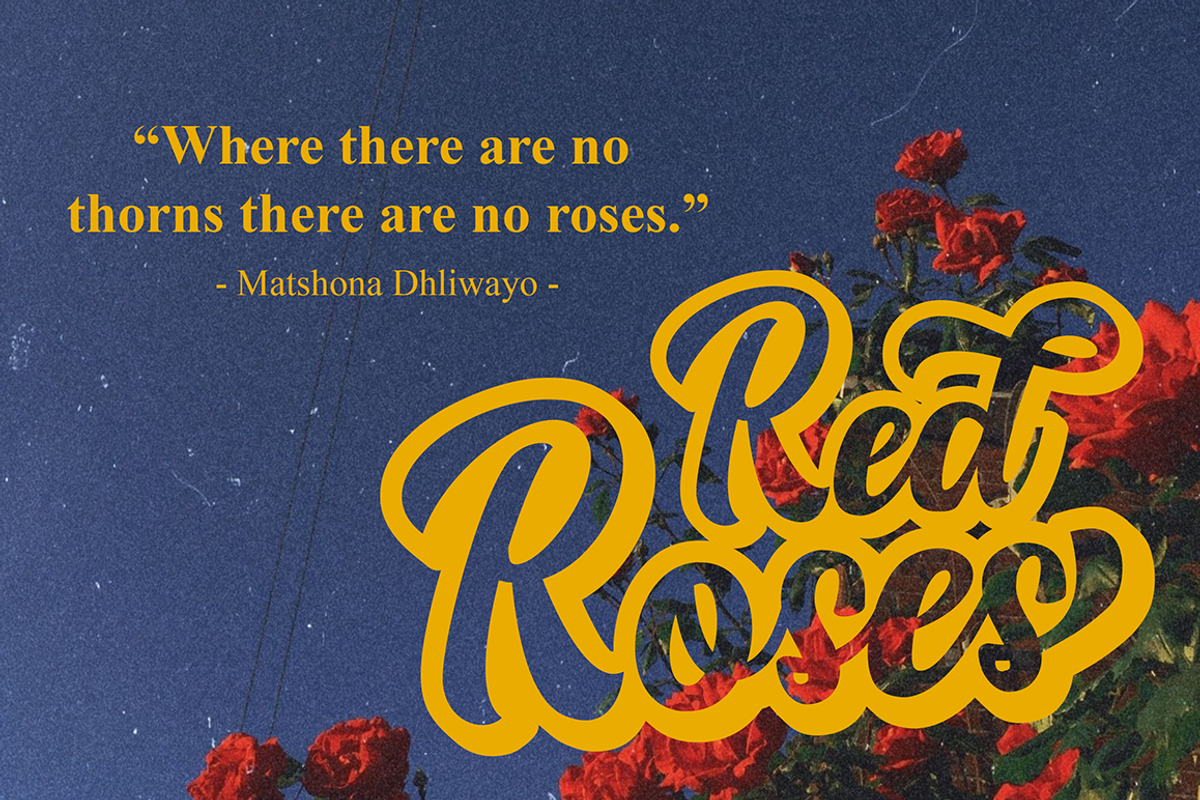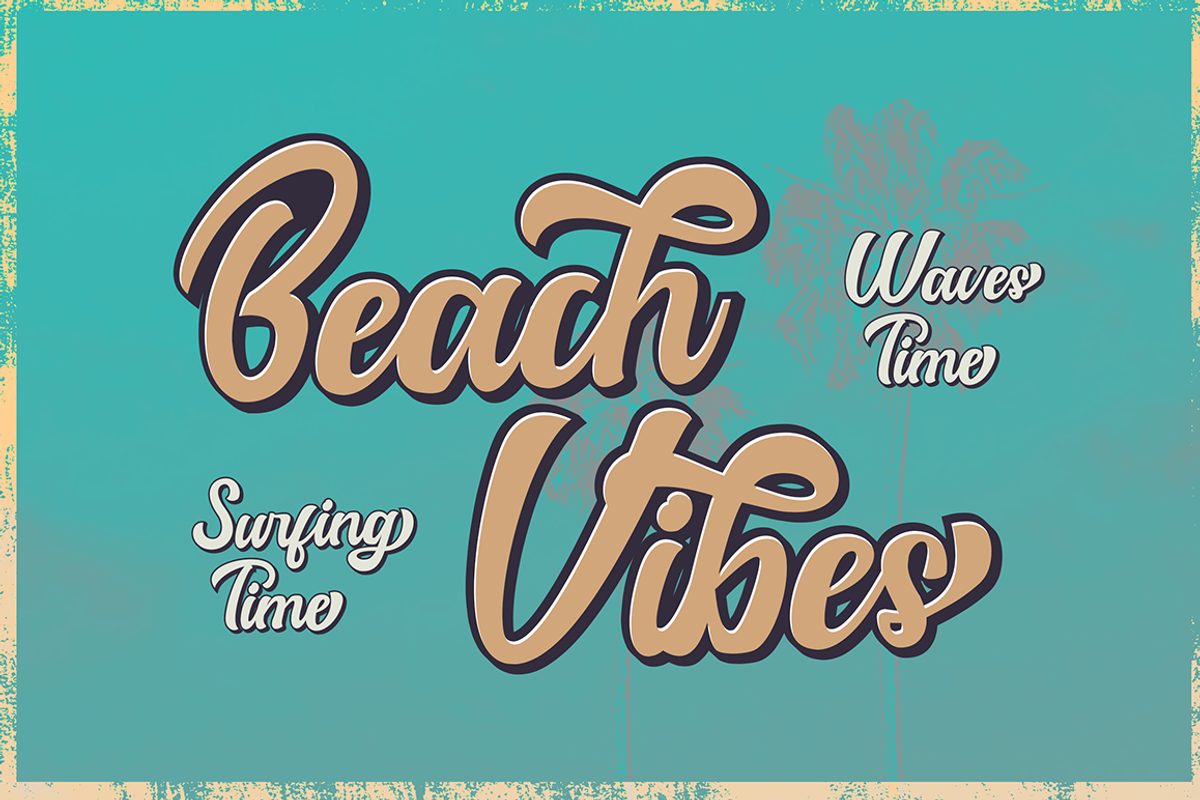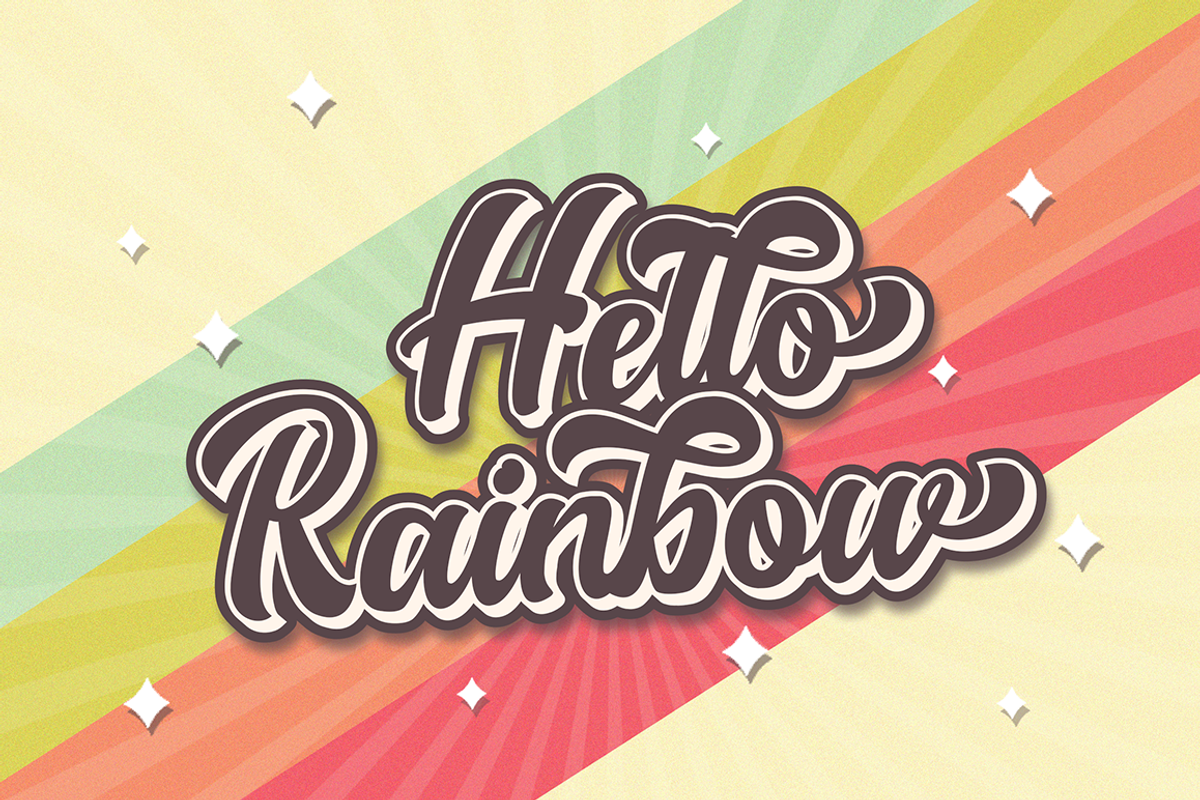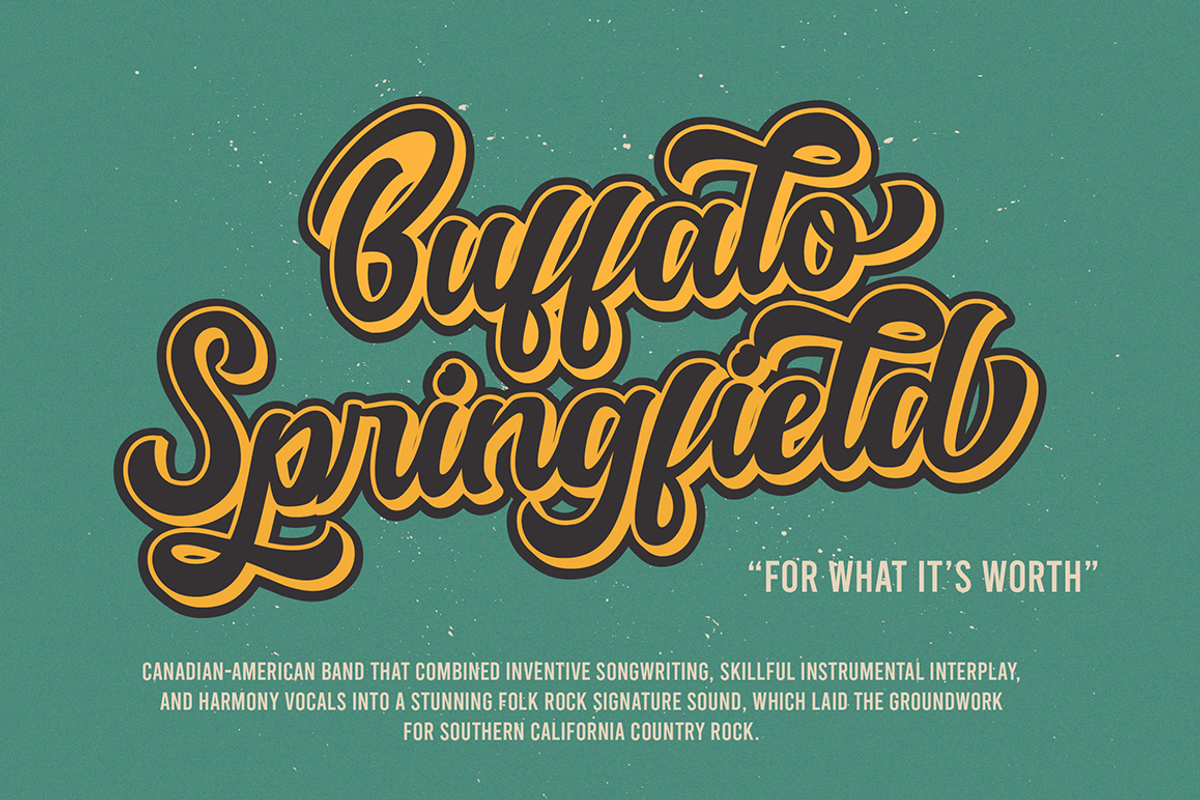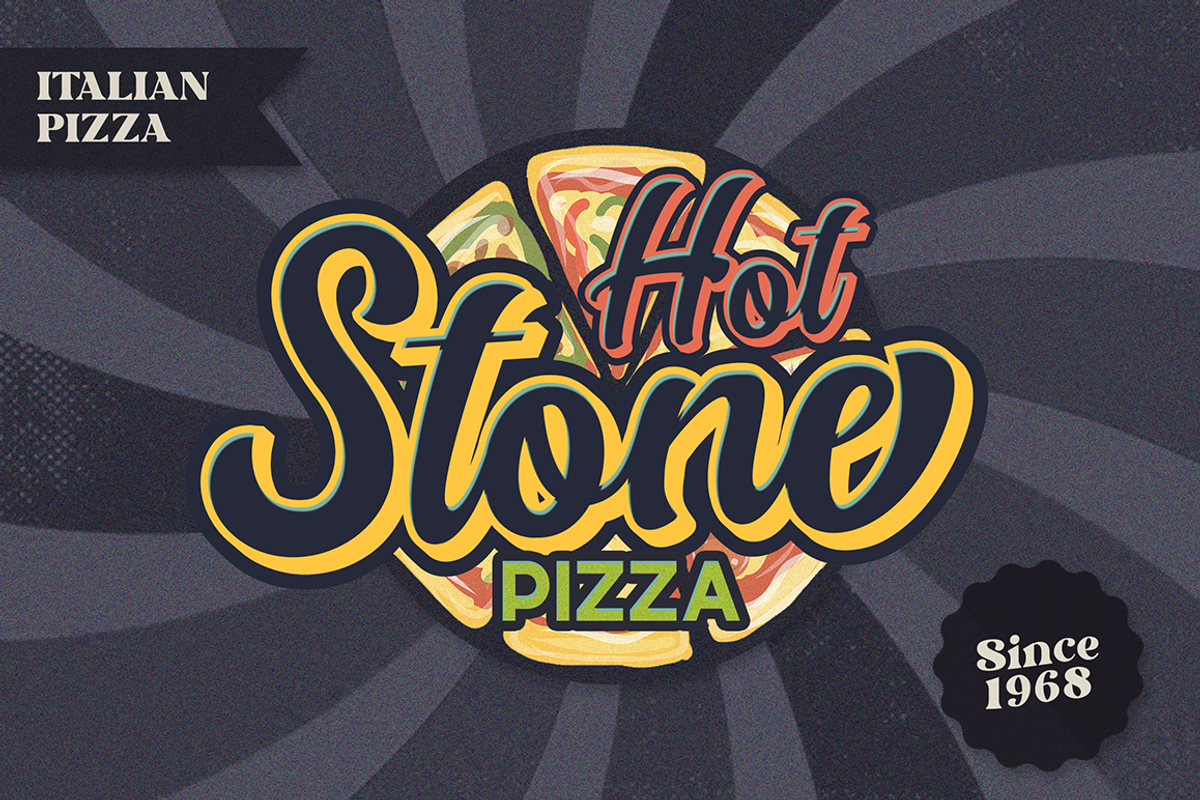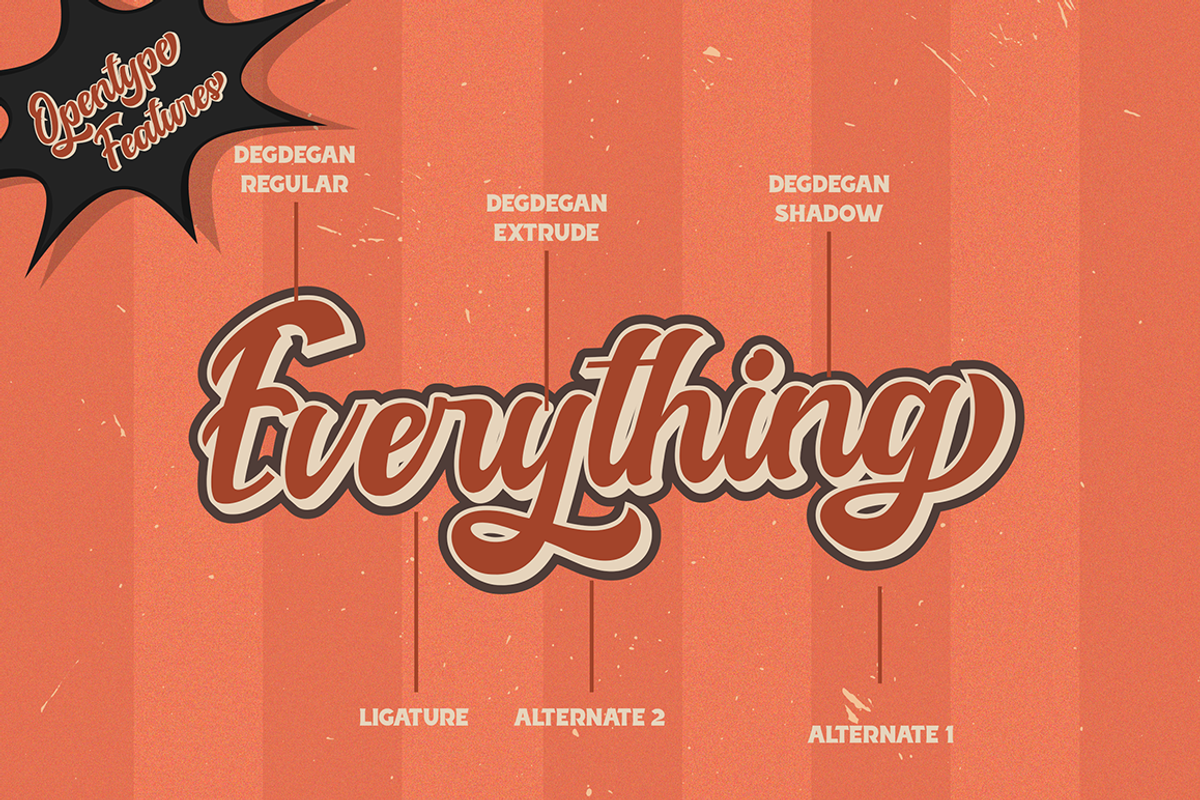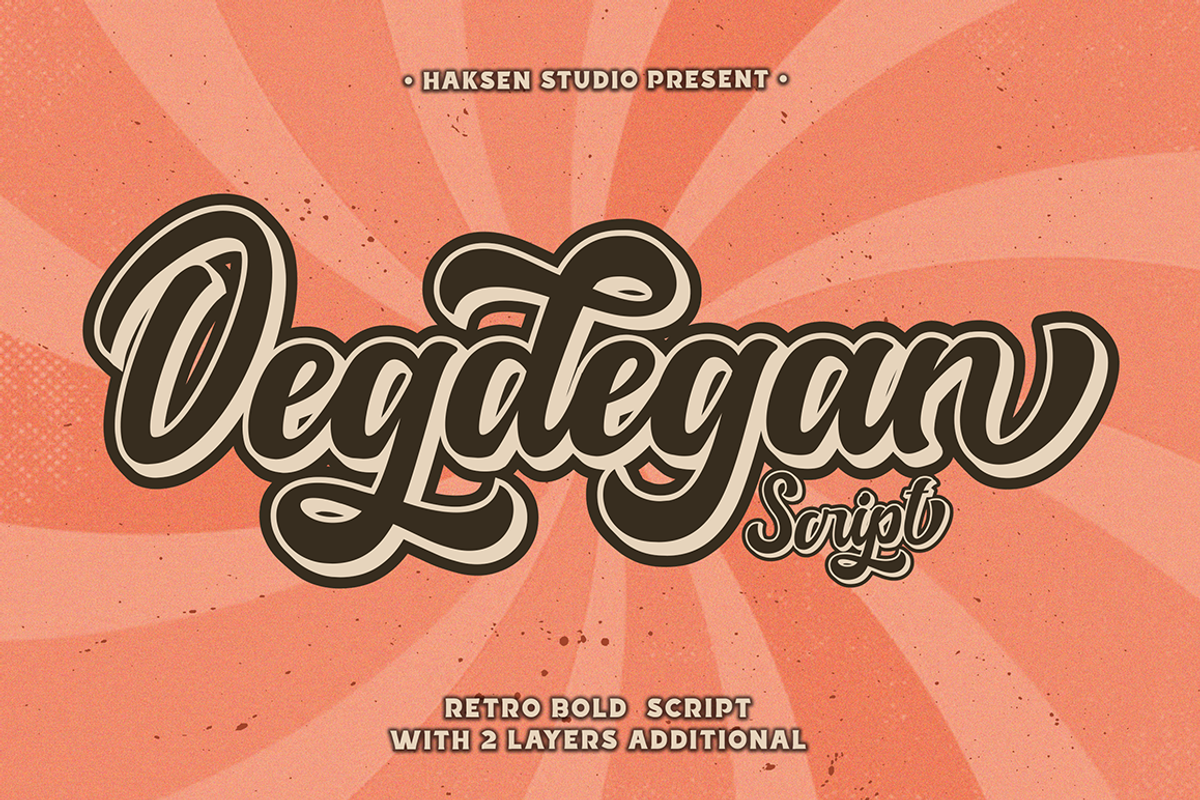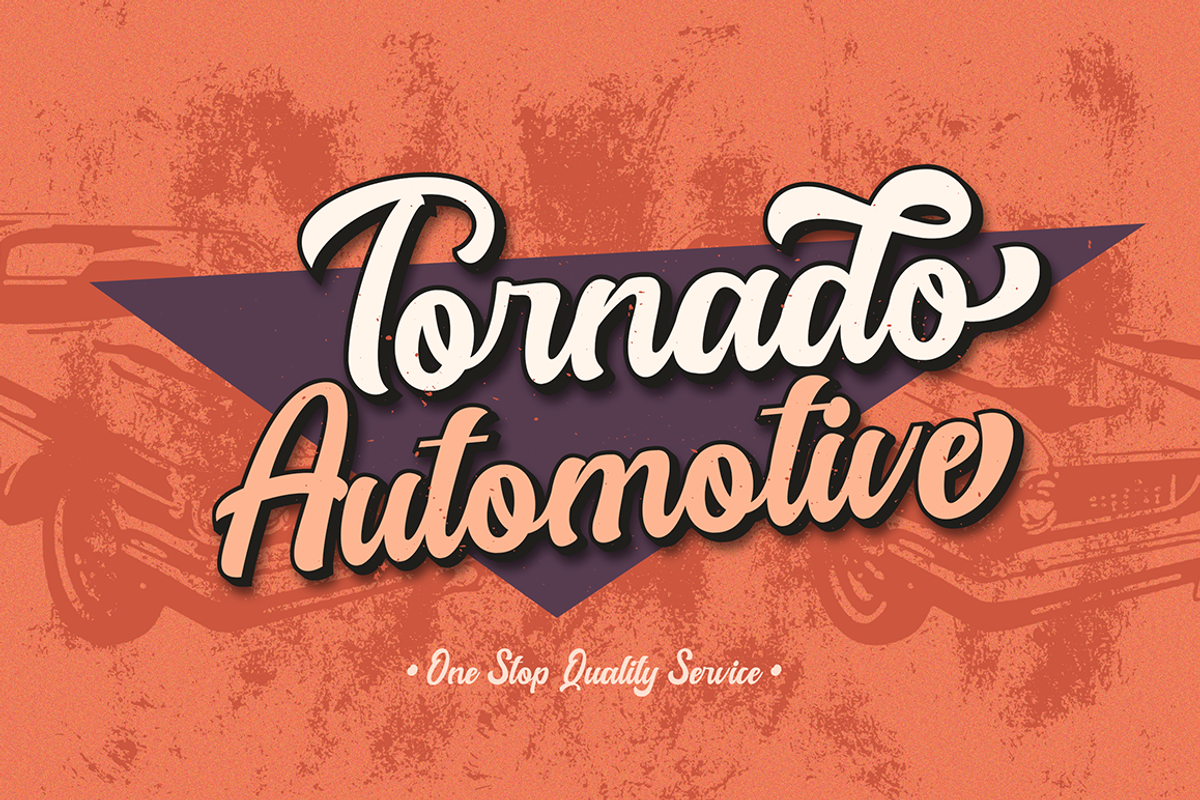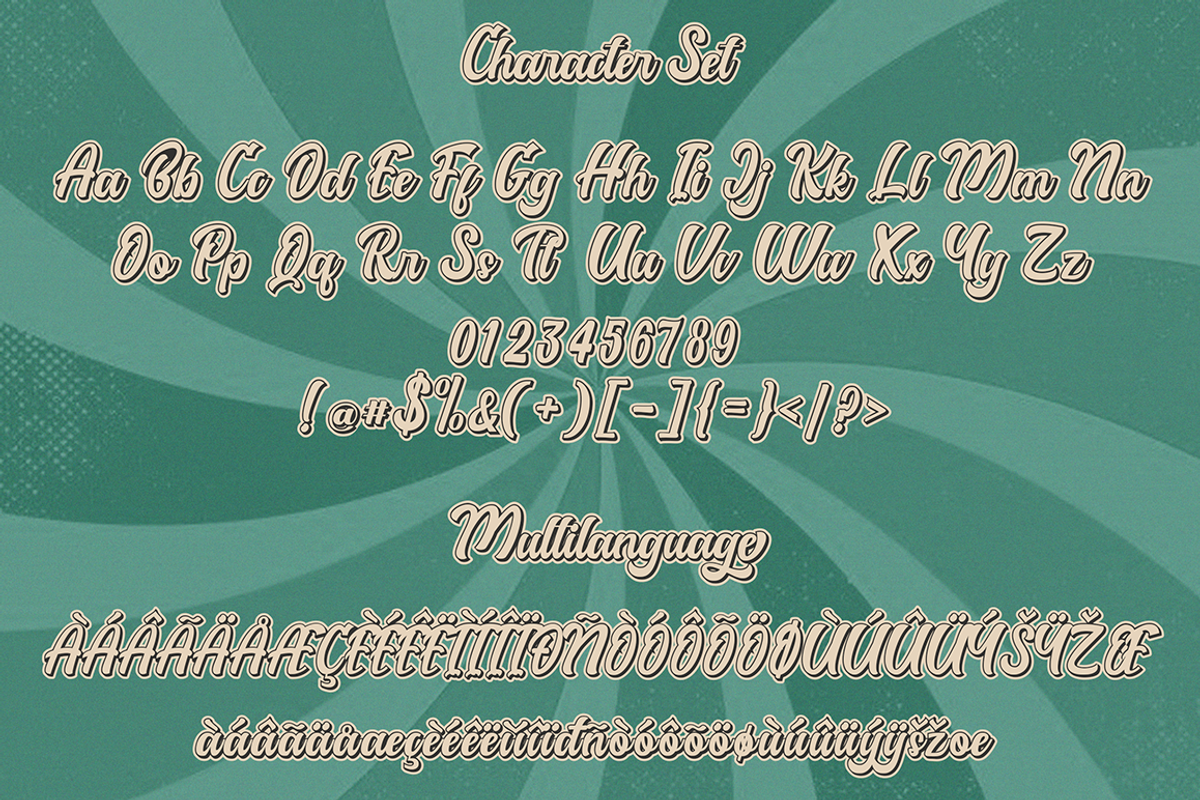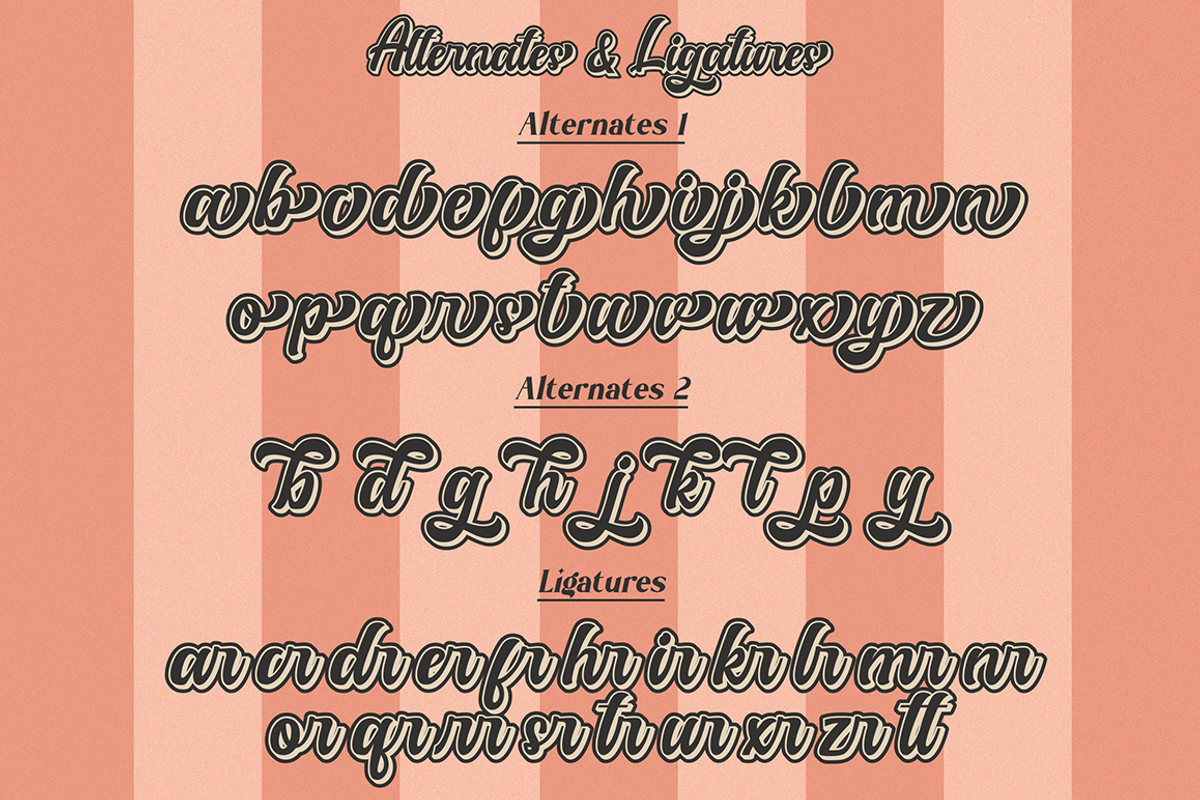
Degdegan Bold Script Retro
Degdegan is a futuristic classic bold script style with unique alternates feel nice balanced. Provide many variant ligatures style make the design letter looks incredible. Honestly it works perfectly for headlines, logos, posters, packaging, T-shirts and much more.
- Regular and Italic version
- Character set A-Z in uppercase and lowercase
- Alternates in Uppercase and Lowercase
- Ligatures in Uppercase and Lowercase
- Accented Characters
- Multiple Languages Supported